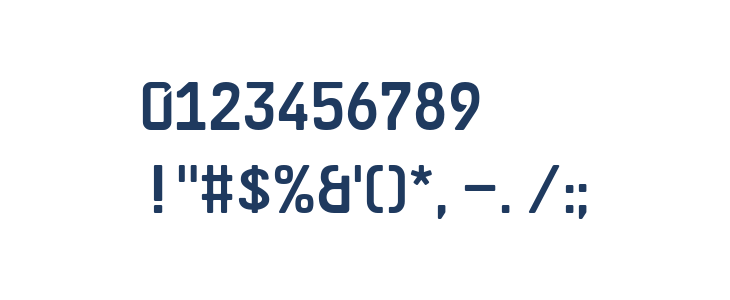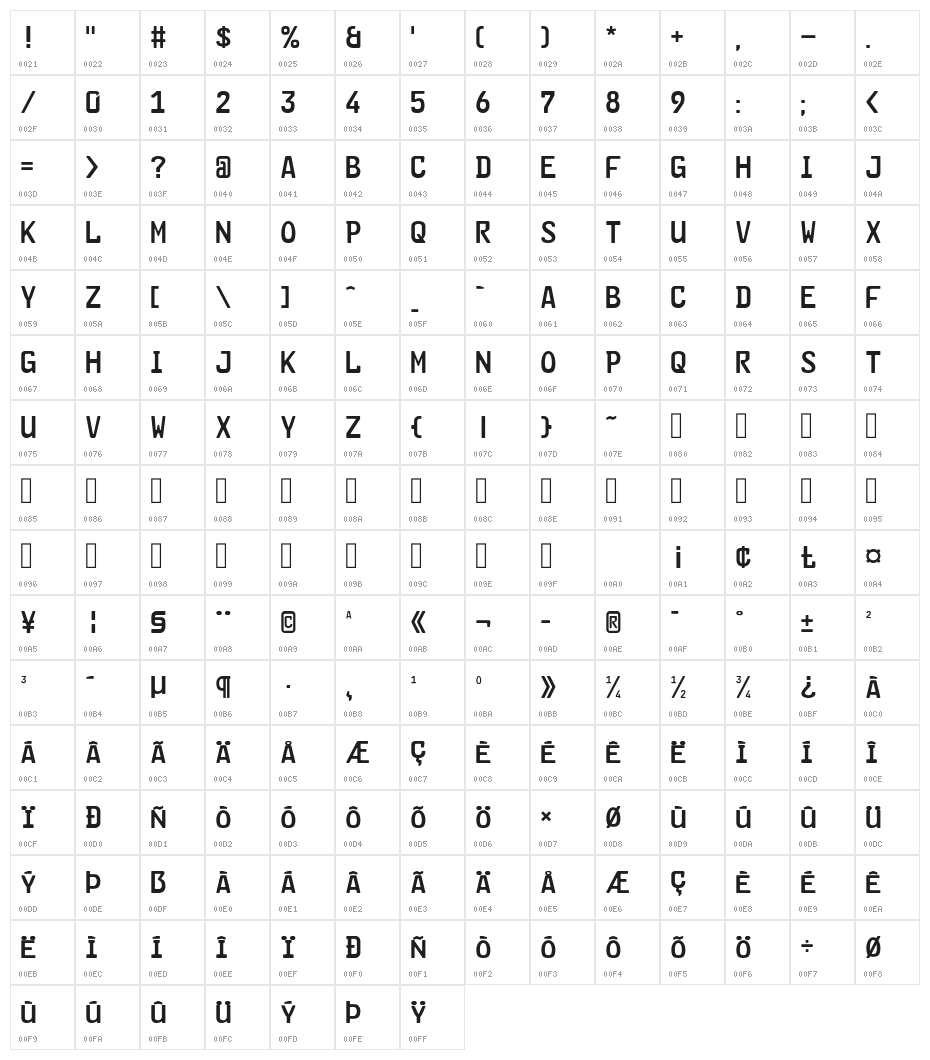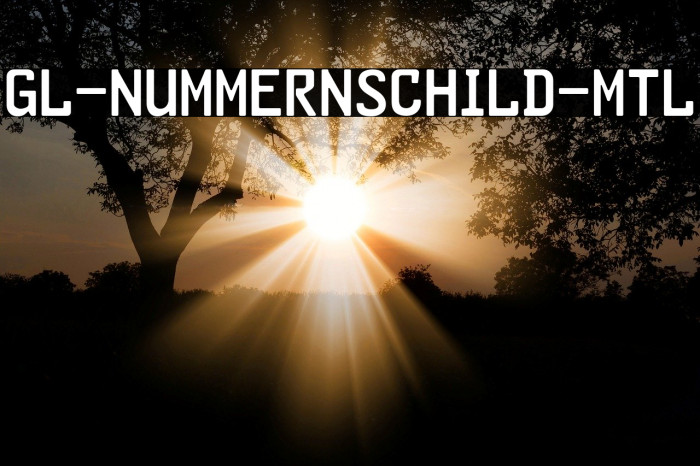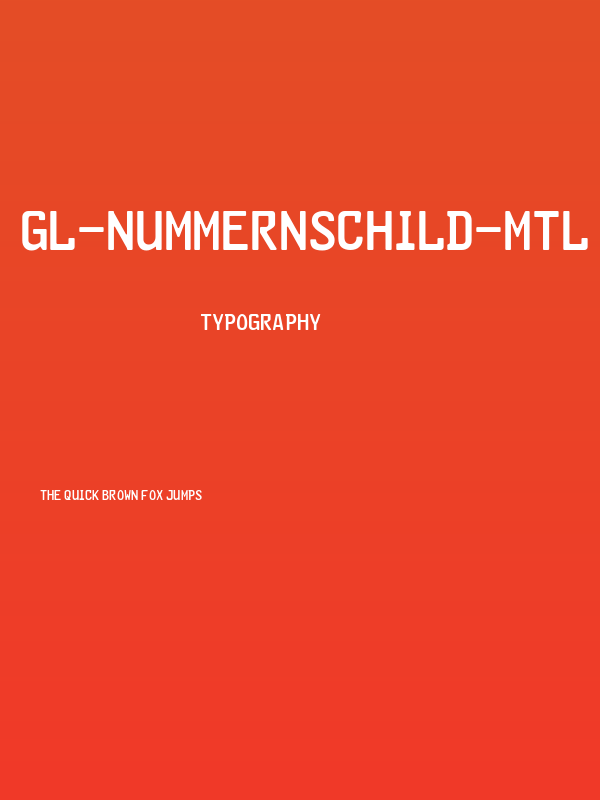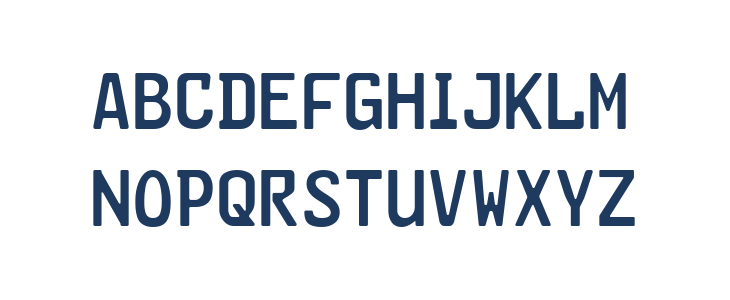
GL-Nummernschild-Mtl Font
GL-Nummernschild-Mtl Description
This font features a bold and structured design with a modern, industrial feel. The characters are distinctly geometric, with uniform stroke widths that convey a sense of strength and stability. The uppercase letters are particularly striking, with sharp angles and clean lines that make them highly legible. The numerals and special characters maintain this consistency, ensuring clarity across all uses. The font's overall appearance is both functional and stylish, making it suitable for a variety of applications where readability and impact are essential.
| Use Case | Headlines, Logos, Signage |
| Proposed Projects | Ideal for use in signage, branding, and editorial design where clarity and impact are crucial. |